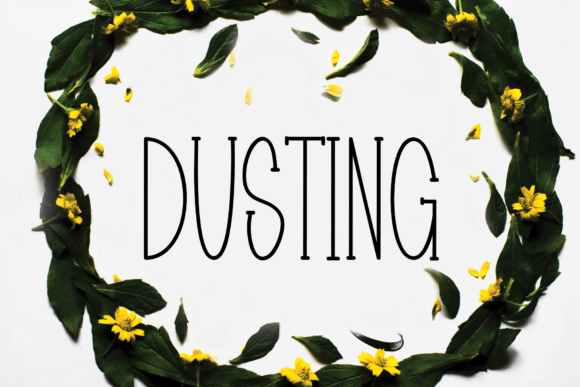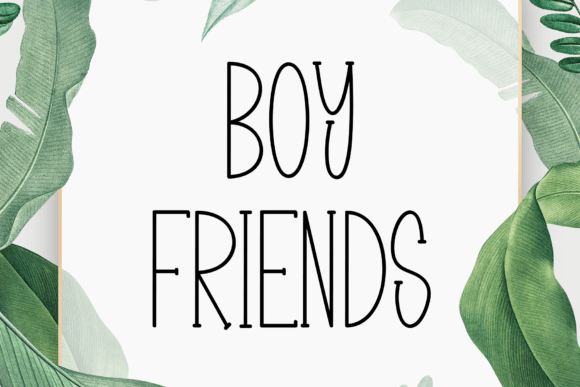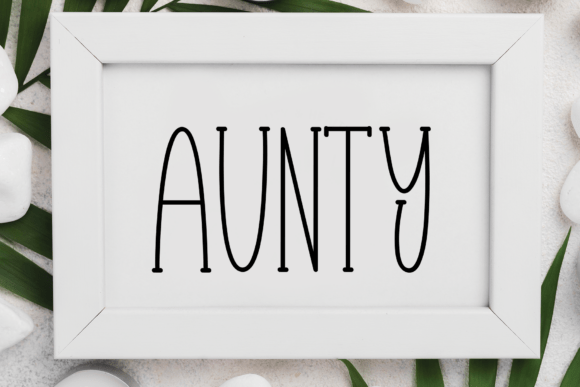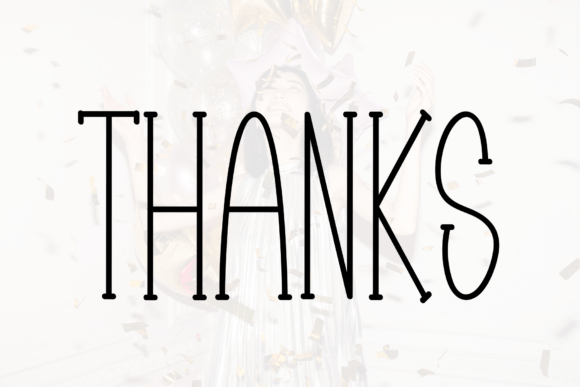
Introducing Editorial Sketch Font: A Sweet and Beautiful Handwritten Delight
Are you a designer or crafter looking for a unique and charming font to add a personal touch to your projects? Look no further than Editorial Sketch Font! This sweet and beautiful handwritten font is sure to capture the hearts of anyone who lays eyes on it. Featuring characters that dance along the baseline, Editorial Sketch Font is the perfect addition to any design project you wish to create.
The Characteristics of Editorial Sketch Font
Editorial Sketch Font boasts a range of characteristics that make it stand out from other fonts. Its handwritten nature gives it a personal and organic feel, perfect for adding a touch of warmth and coziness to your designs. The font’s characters are carefully crafted to dance along the baseline, creating a sense of movement and fluidity. This unique feature adds a level of sophistication and elegance to your designs, making them truly unforgettable.
Editorial Sketch Font is incredibly versatile, making it suitable for a wide range of design projects. Whether you’re working on a branding campaign, a wedding invitation, or a craft project, this font is sure to add a touch of magic. Its sweet and beautiful nature makes it perfect for projects that require a personal and emotional connection, such as:
- Craft projects, such as handmade cards and gift tags
- Social media graphics and quotes
- Blog and website design
Why Choose Editorial Sketch Font?
With so many fonts available, why choose Editorial Sketch Font? Here are just a few reasons why this font stands out from the rest:
- Unique and eye-catching: Editorial Sketch Font is a one-of-a-kind font that is sure to grab attention.
- Easy to read: Despite its handwritten nature, Editorial Sketch Font is incredibly easy to read, making it perfect for body text and headlines.
- Highly versatile: This font can be used for a wide range of design projects, from formal to informal.
- Beautiful and elegant: Editorial Sketch Font adds a touch of sophistication and elegance to any design.
Tips for Using Editorial Sketch Font
To get the most out of Editorial Sketch Font, here are a few tips to keep in mind:
- Use it sparingly: Editorial Sketch Font is a statement font, so use it sparingly to add emphasis and interest to your designs.
- Pair it with a neutral font: Pair Editorial Sketch Font with a neutral font, such as a sans-serif or serif font, to create a beautiful contrast.
- Experiment with colors: Editorial Sketch Font looks beautiful in a range of colors, so don’t be afraid to experiment and find the perfect hue for your design.